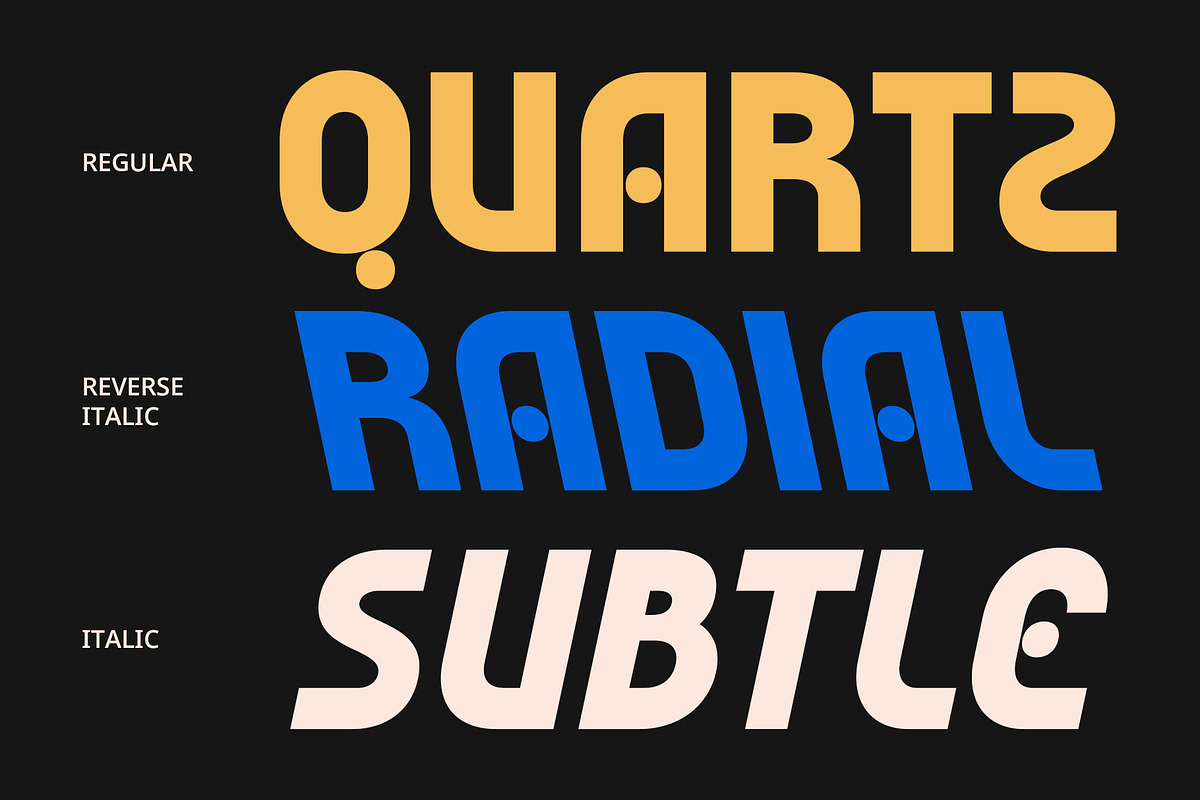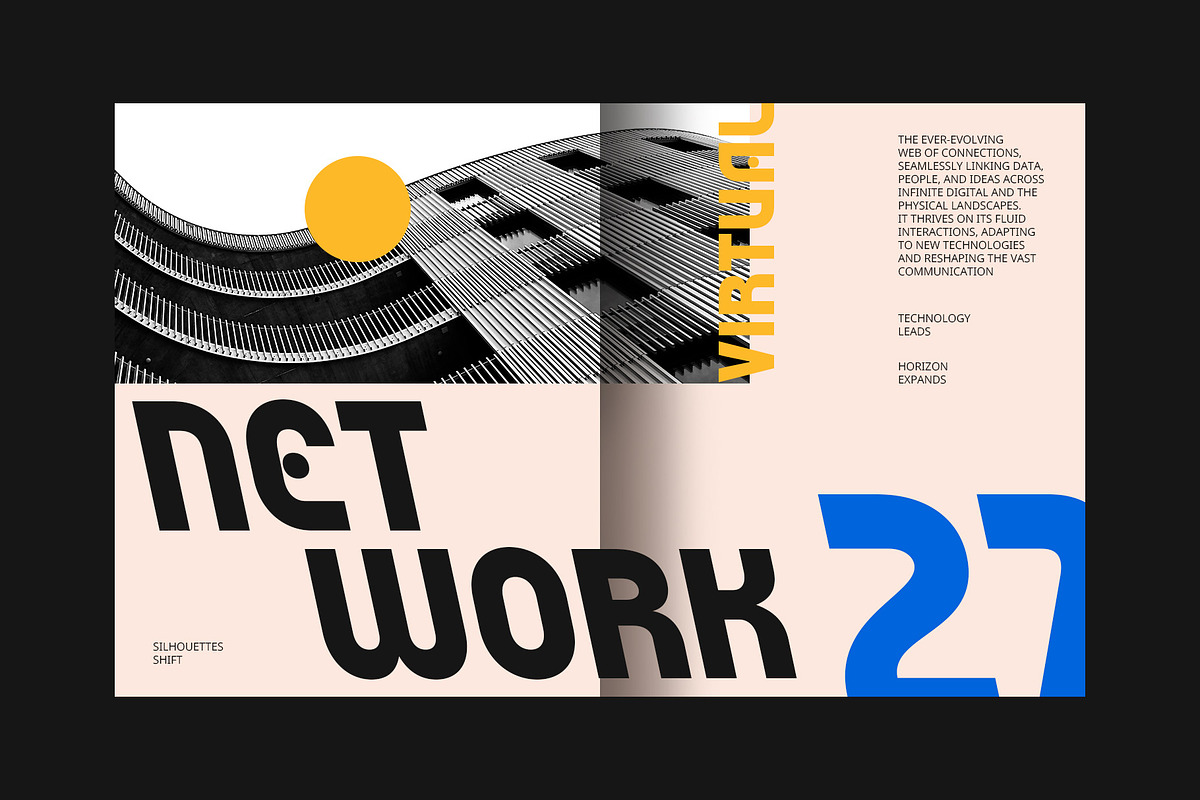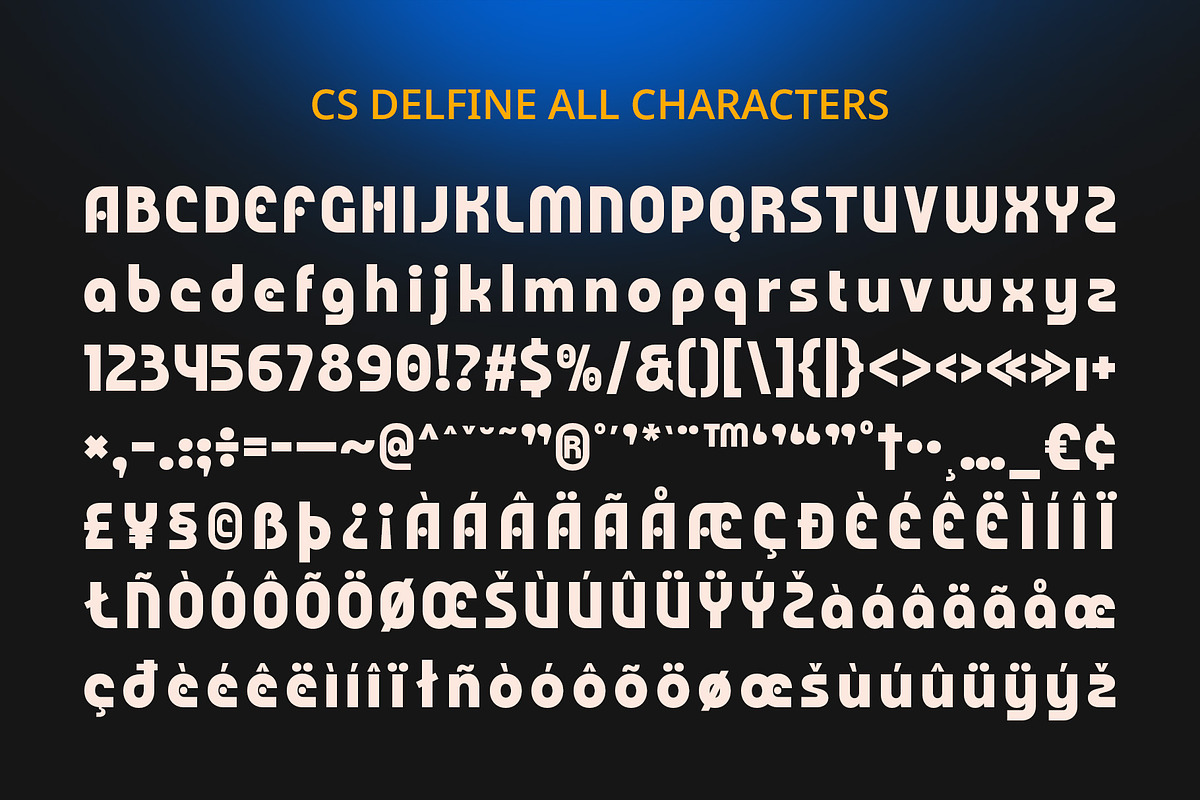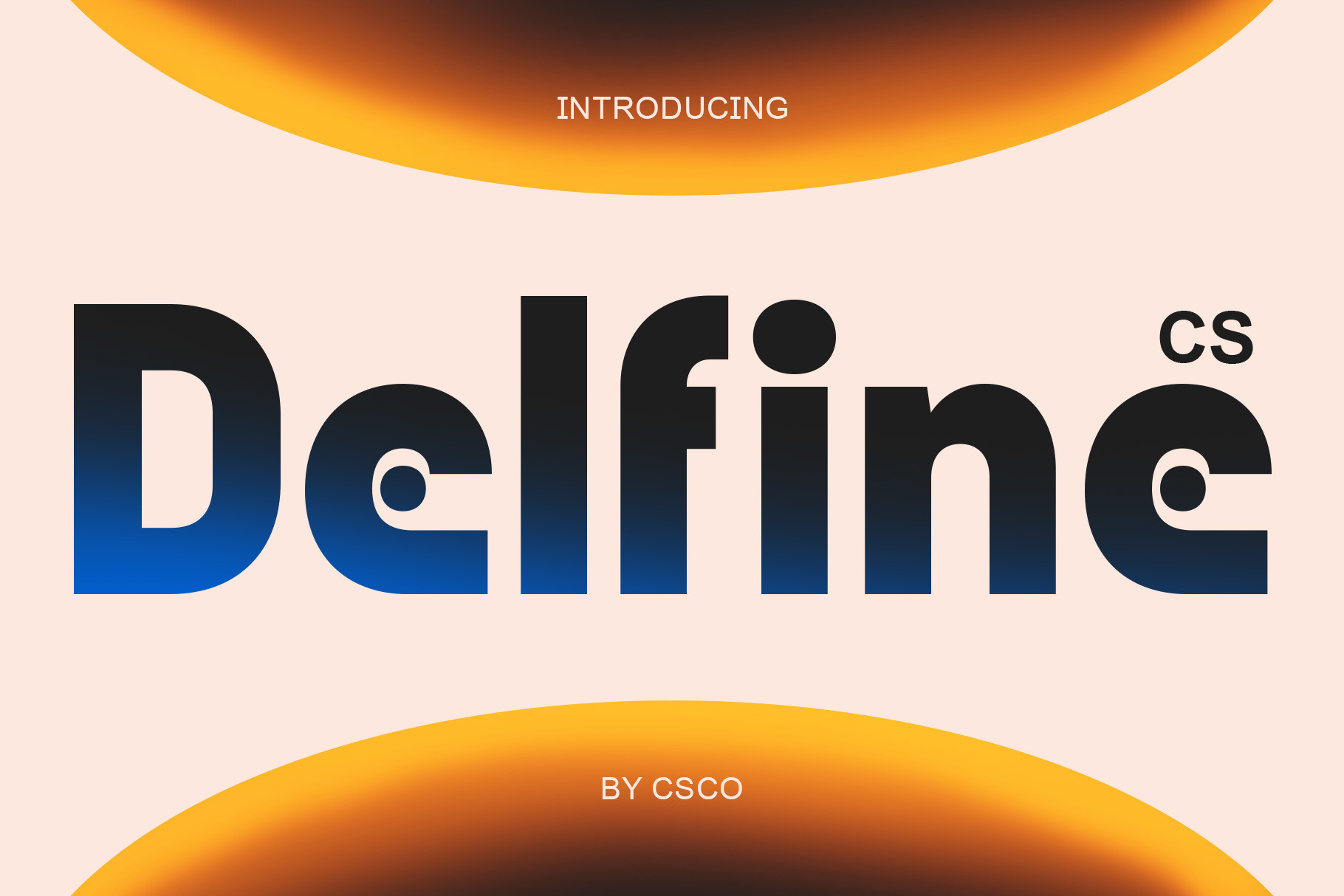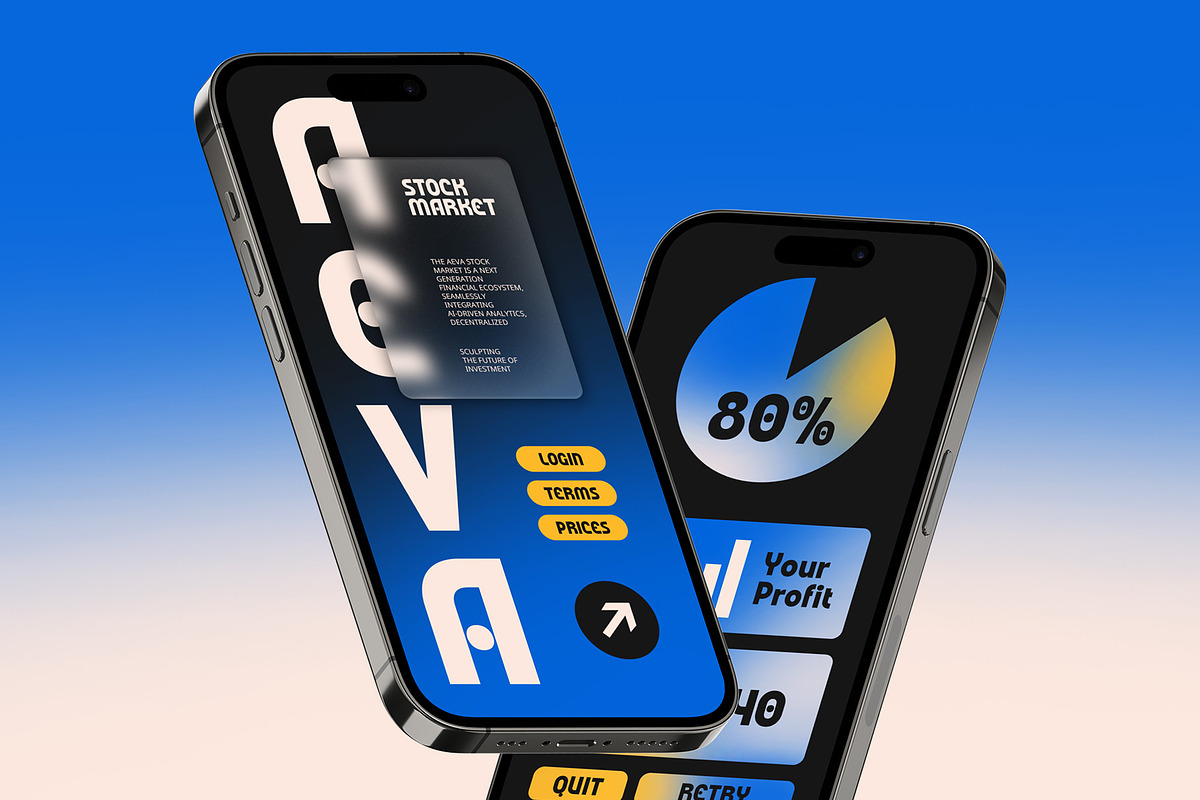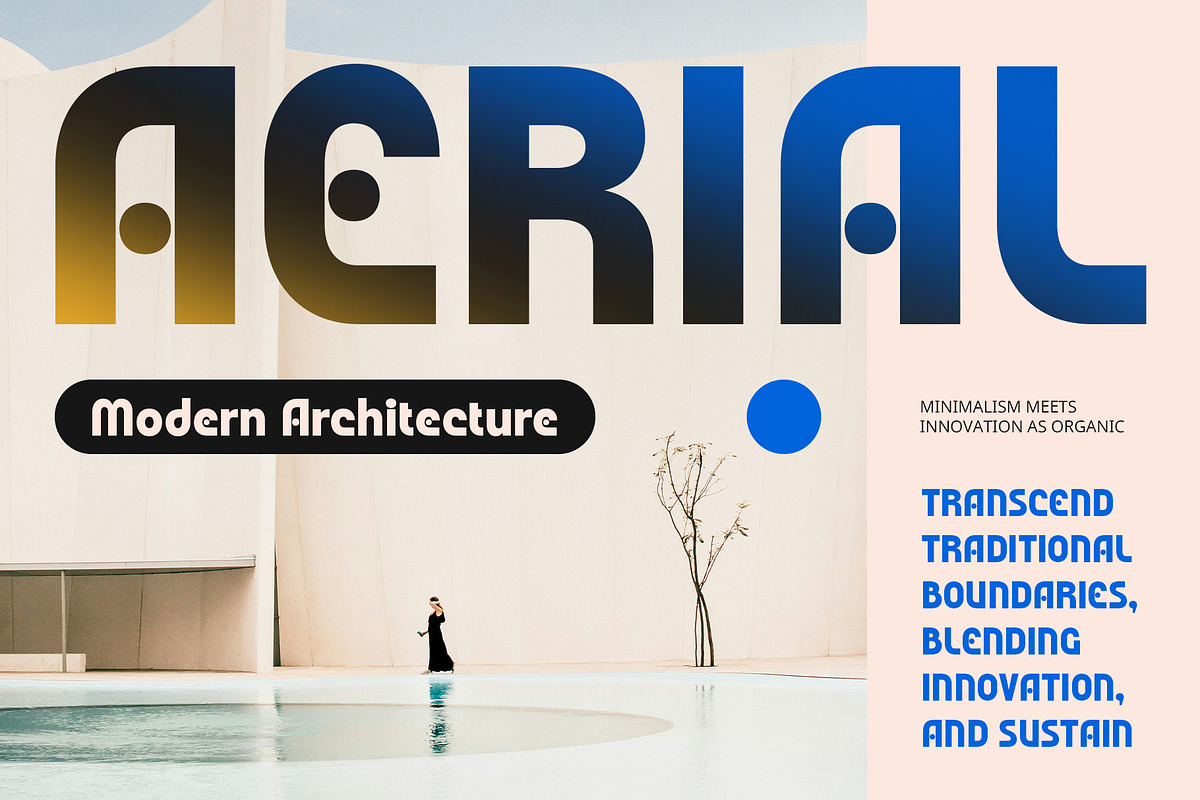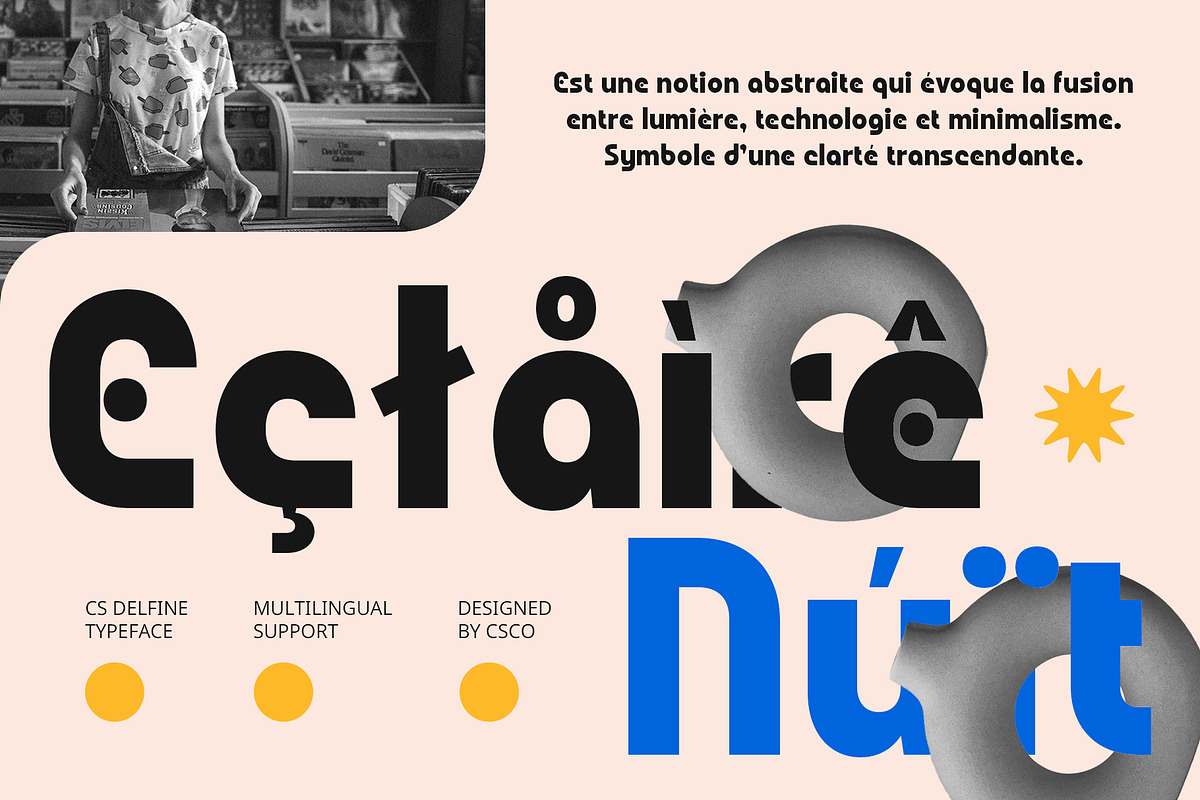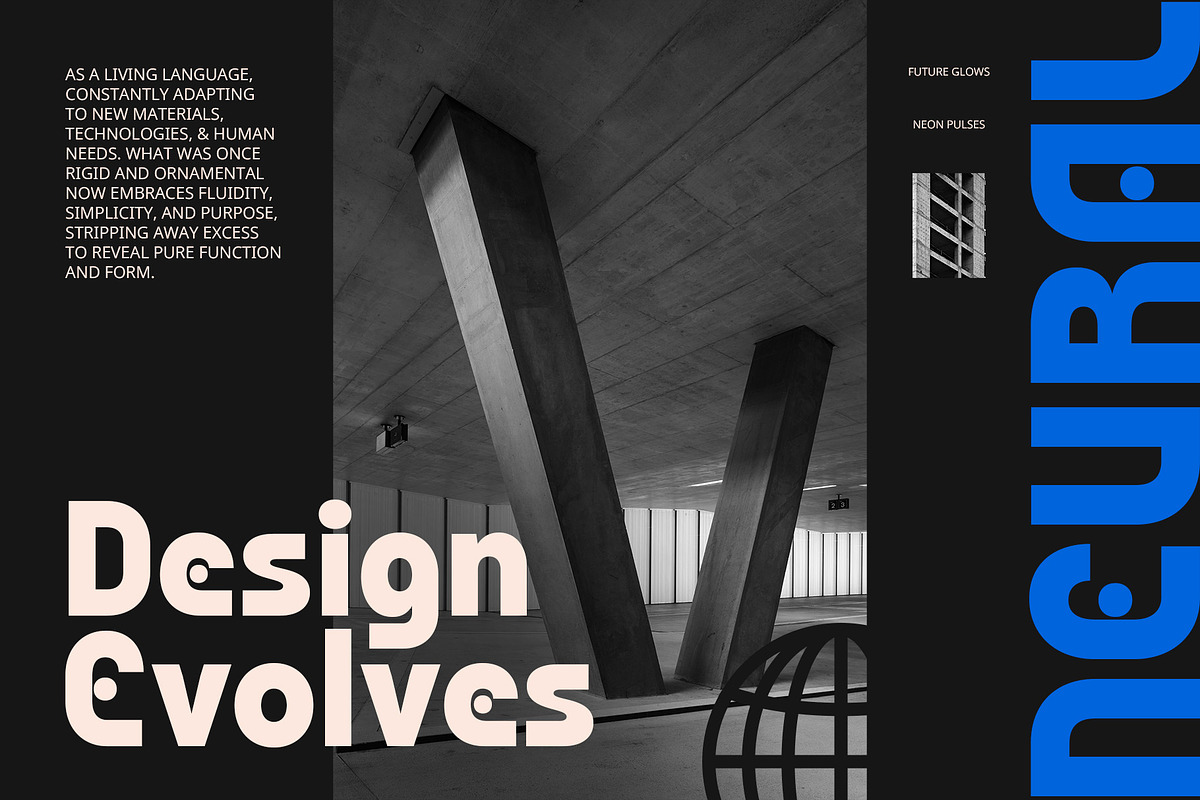
CS Delfine – Bold Font
CS Delfine – Bold Font: Energetic, Funky, and Impactful
Striking Modern Sans-Serif Display Font CS Delfine is a modern sans-serif display font that exudes boldness with its strong, eye-catching letterforms. The robust structure of the font makes it impossible to ignore, delivering a powerful impact in any design. Perfect for projects that demand attention, this font combines clean modern lines with daring shapes, ensuring that it stands out in all types of creative applications.
Funky and Lively Character With its energetic and lively design, CS Delfine brings a playful and fun vibe to any project. The letterforms have a sense of movement, giving them an expressive and dynamic feel. This makes it ideal for designs aiming to evoke excitement and creativity, from poster designs to branding campaigns. The funky and vibrant nature of the font gives it an instant, positive impression.
Versatile for Creative and Bold Projects CS Delfine excels in a variety of creative settings, including event posters, branding initiatives, and eye-catching social media campaigns. Its bold presence adds energy and excitement, making it perfect for projects that need a font with personality. The strong, attention-grabbing structure of CS Delfine makes it a top choice for designs that require boldness.
- CS Delfine Regular
- CS Delfine Italic
- CS Delfine Reverse Italic